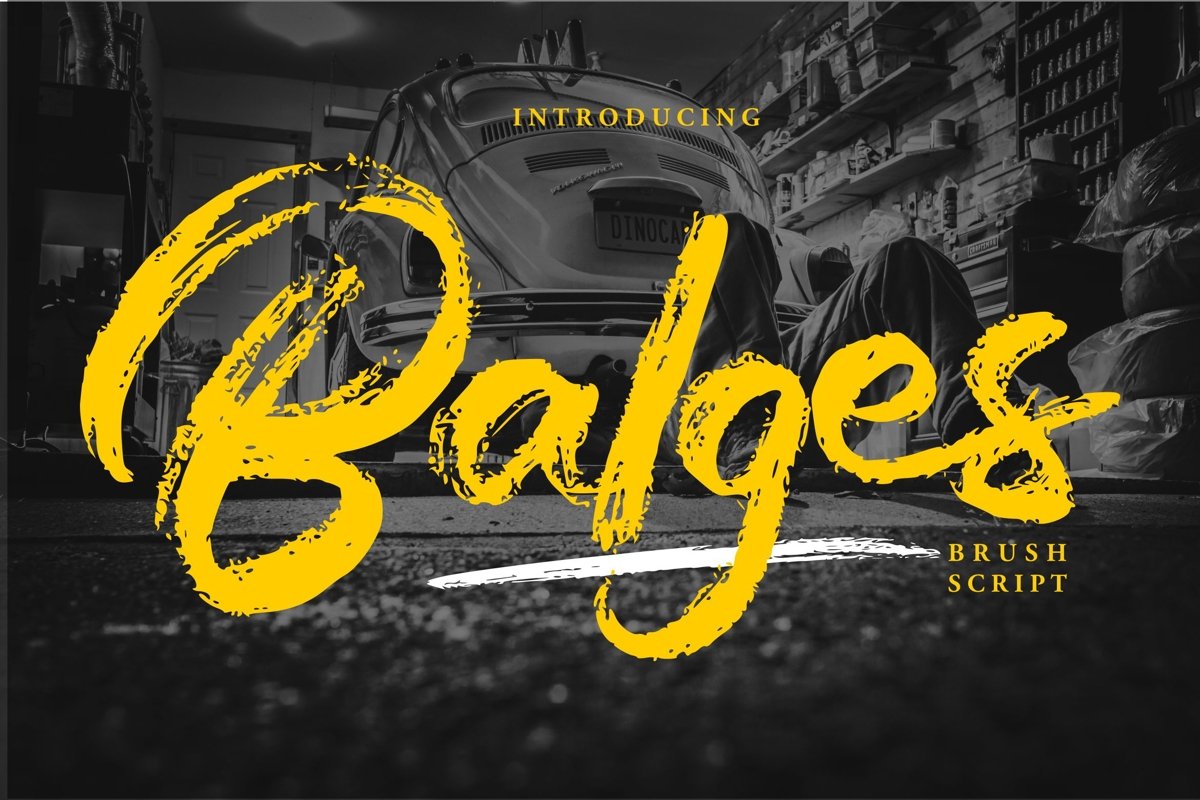
Balges | Decorative Brush Script Font
Balges
**Balges | Decorative Brush Script Font** with a calligraphy style, So beautiful on invitation like greeting cards, branding materials, business cards, quotes, posters, and more!
* Tons of glyphs
* Alternates and Ligatures
* Punctional
* Fonts include **Multilingual Support**